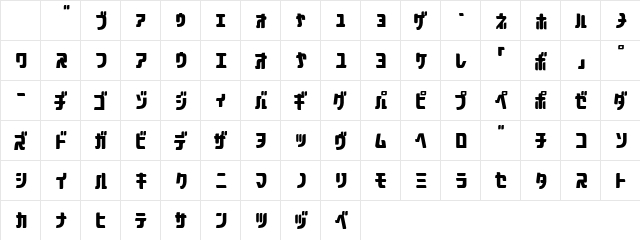
Aquasky20KAT Regular Free Font
Aquasky20KAT Regular
Design Context for Aquasky20KAT
Aquasky20KAT is a composed and adaptable typeface that performs quietly and consistently across a wide range of design contexts.